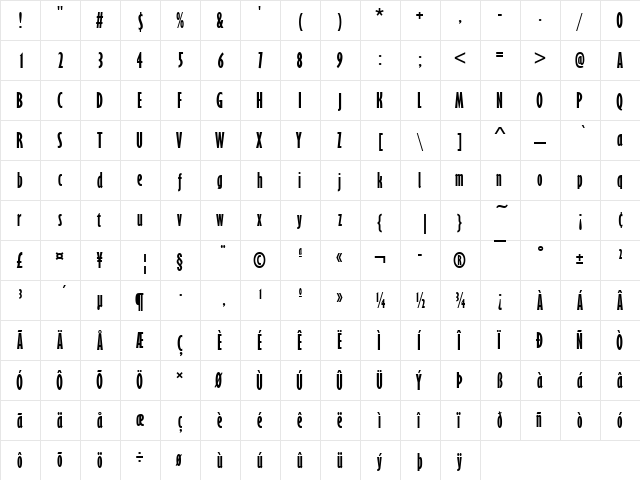
URWGalaxieDBolExtCon Regular
Design Context for URWGalaxieDBolExtCon Typeface
URWGalaxieDBolExtCon is a composed and adaptable typeface that performs quietly and consistently across a wide range of design contexts.